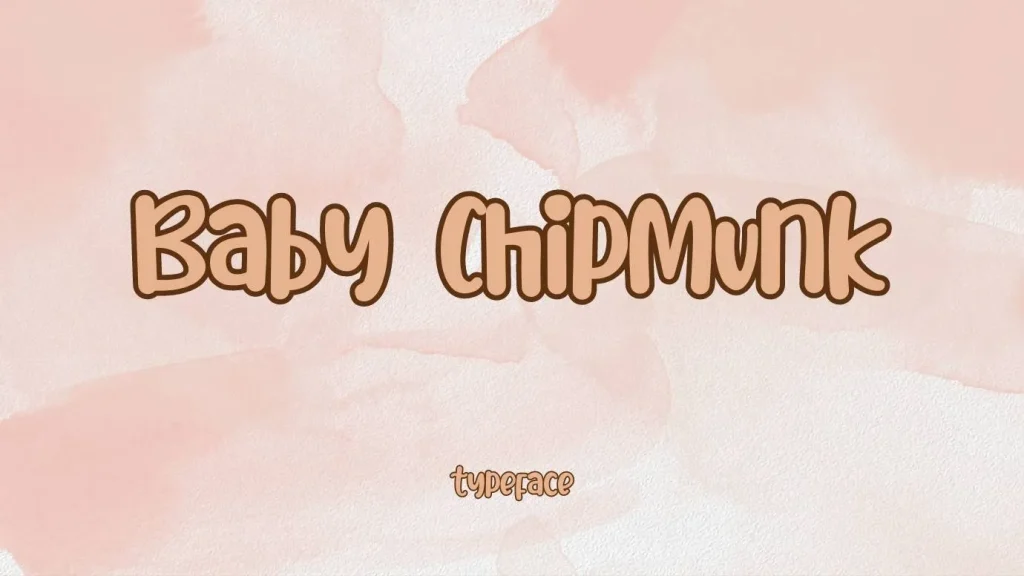
Stefani Letter designed the fancy design. Baby Chipmunk font can be evaluated from here by selecting a variety of characters. Baby Chipmunk Font is often used to create stunning and readable designs. It can be used anywhere where you want to create a new design.
As well as it has a readable texture and a unique appearance, this typeface is attractive. And is perfect for logos, branding projects, homeware packaging, and all sorts of other lovely ventures that require a beautiful look.
Baby Chipmunk Font Usage
There are many uses for this stunning font family, including titles, captions, and headings. You’ll get a rustic look with its unique characters.
You will get a pleasing feel with this font. Many things can be done with it, including invitation cards, video game graphics, and web designs. It would work well for a nature-themed project as well as something historical.
Making beautiful tattoos is easy with this typeface. As well as printing t-shirts and banners, it can also be used for designing logos and creating banners. Create unique designs by pairing this font with violet bee font.
The use of this typeface gives almost every design a heavy look, so it would be an ideal choice for big-text projects. There are a lot of uses for this typeface, such as creating invitation cards, stylish posters, unique book covers, game designs, and more designs.
Where we can use the Baby Chipmunk typeface?
Several projects can be designed with this stylish typeface. There are many ways to use it, including book covers, artwork, and graphic designs.
What kind of font the Baby Chipmunk Font is?
It is a fancy text style each letter may have a different font style. This style is amazing for creating unique and attractive design projects.